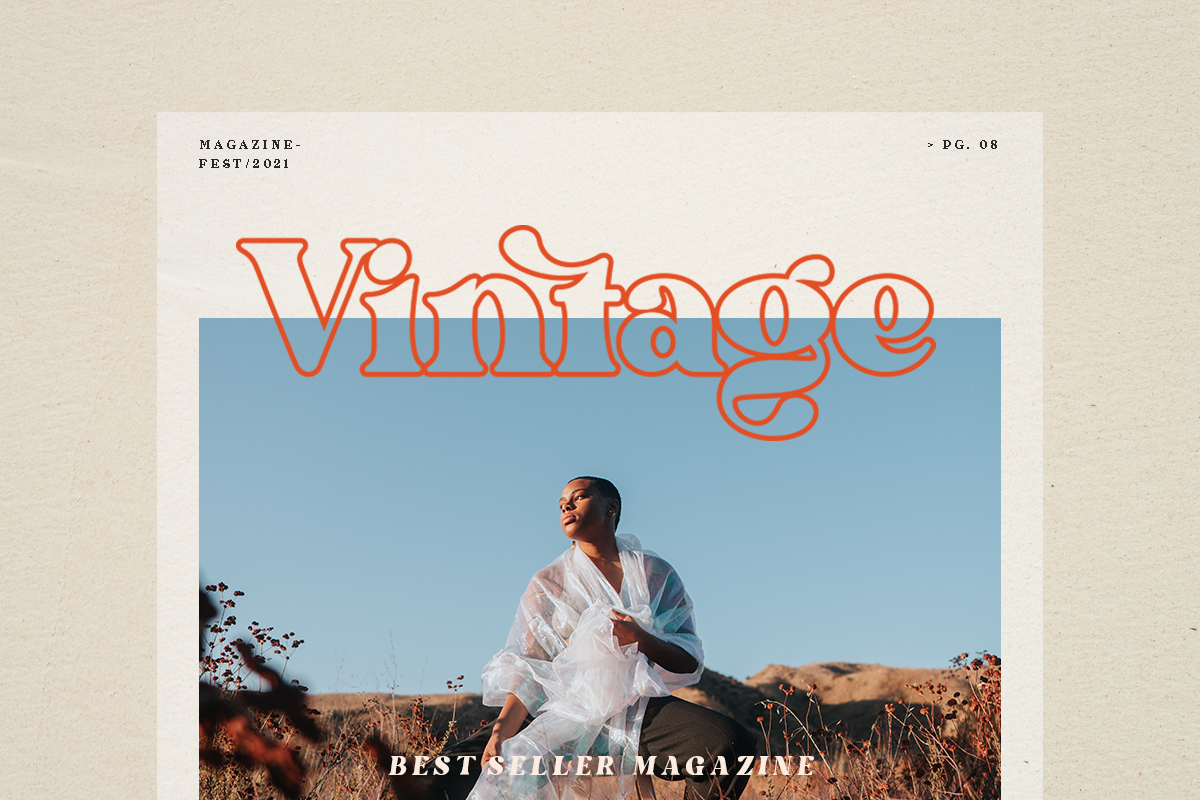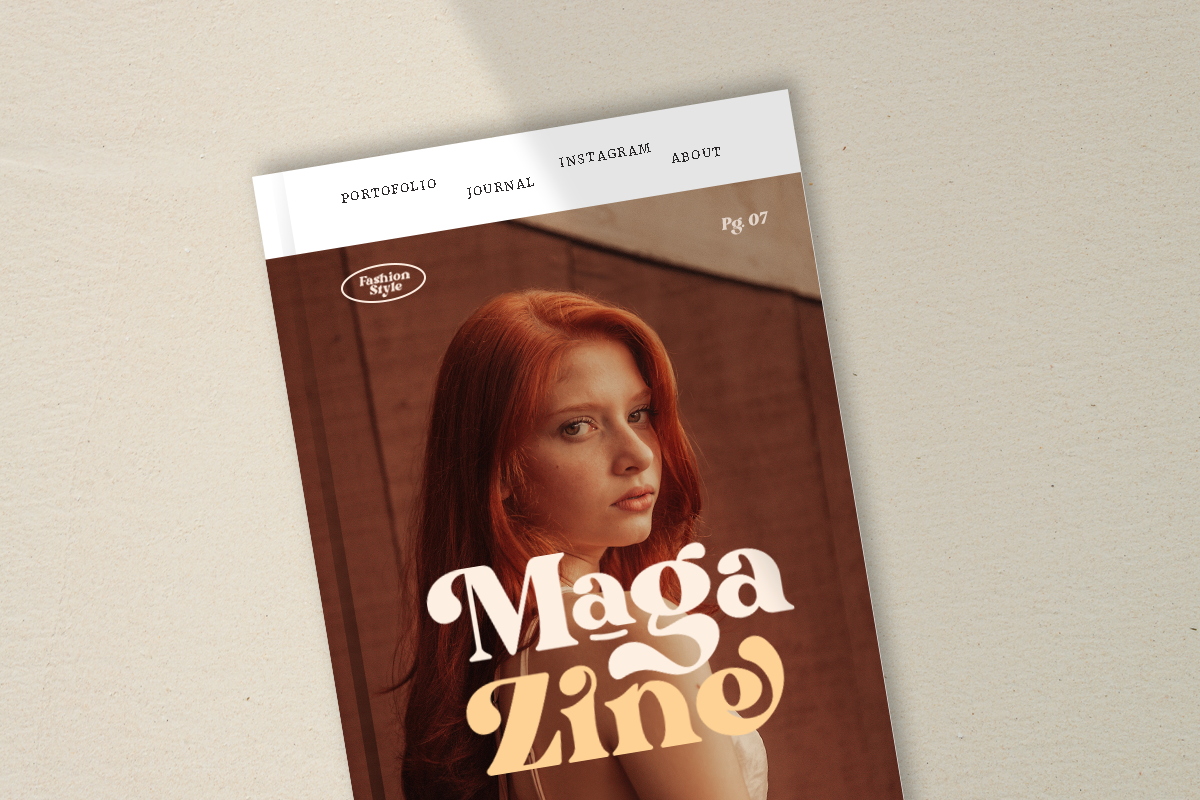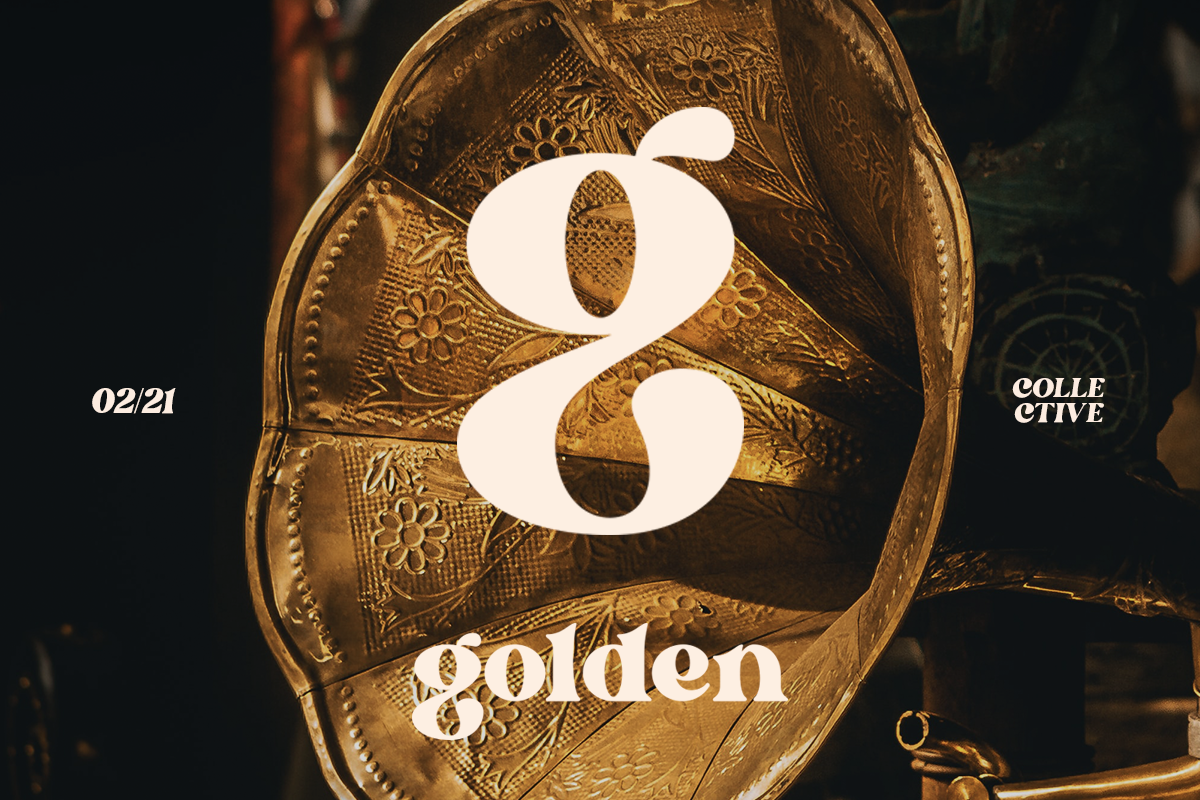
Bright - Modern Retro (New Update!)
Bright is a versatile display font designed for logos, branding, packaging, social media graphics, and editorial projects. It combines clean modern shapes with subtle retro influences, making it suitable for a wide range of creative applications. With more than 50+ stylistic alternates, ligatures, and an italic version, Bright gives you flexibility to create custom lettering for brand identities, product packaging, invitations, posters, and digital content.
Bright Font Features:
3 Styles: Regular, Italic, and Outline
50+ Stylistic Alternates and Ligatures
Letters, numbers, symbols, punctuation, special alternates
Multilingual Characters available for:
Afrikaans, Albanian, Asu, Basque, Bemba, Bena, Breton, Chiga, Cornish, Dutch, English, Estonian, Filipino, Finnish, Friulian, Galician, German, Gusii, Indonesian, Irish, Italian, Kabuverdianu, Kalenjin, Kinyarwanda, Luo, Luxembourgish, Luyia, Machame, Makhuwa-Meetto, Makonde, Malagasy, Manx, Morisyen, North Ndebele, Nyankole, Oromo, Portuguese, Quechua, Romansh, Rombo, Rundi, Rwa, Samburu, Sango, Sangu, Scottish Gaelic, Sena, Shambala, Shona, Soga, Somali, Spanish, Swahili, Swedish, Swiss.